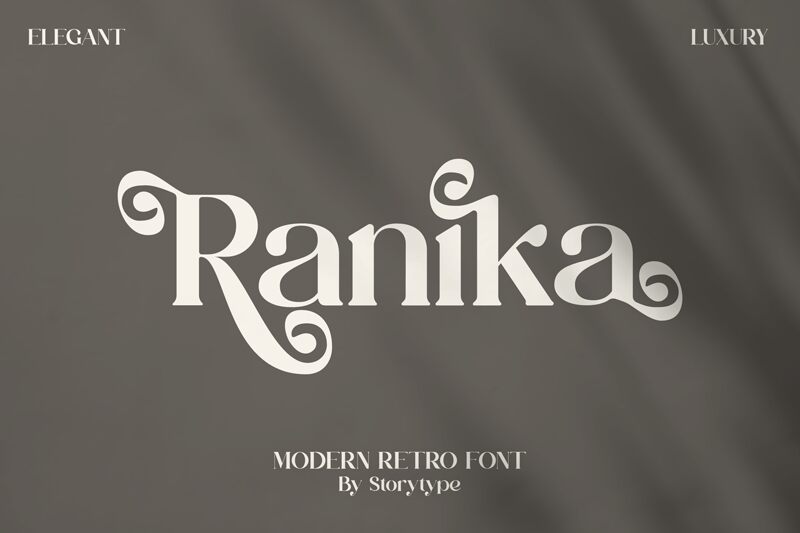
Ranika
Ranika, a bold and modern serif font by Storytype Studio, adds a touch of sophistication to any project. With its clean lines and confident curves, this typeface is perfect for creating eye-catching headlines, elegant logos, and impactful marketing materials. The versatility of Ranika makes it suitable for a wide range of projects such as fashion magazines, luxury branding, high-end product packaging, and editorial design. Whether you're aiming for timeless elegance or contemporary chicness, Ranika's bold weight will ensure your message stands out with confidence. Elevate your designs with the sleek and stylish Ranika font today!